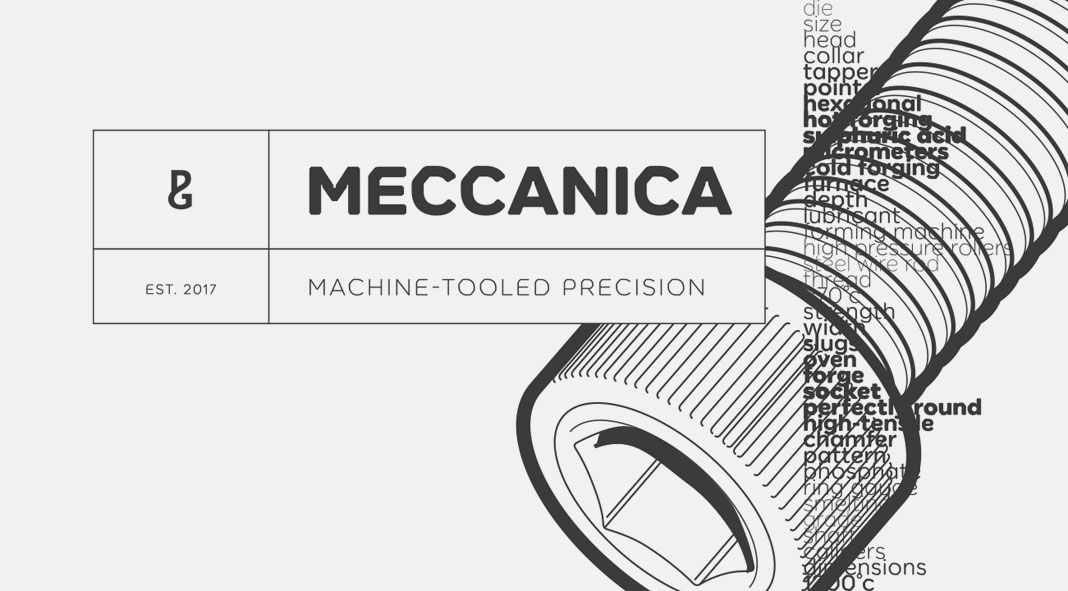
Meccanica, an engineering and mechanics inspired display font family by Paulo Goode.
Designed and published by Paulo Goode, Meccanica is a geometric sans serif font family with a unique appearance. Inspired by mechanics and engineering, the typeface is characterized by a combination of angular bowls and shoulders along with soft, chamfered edges. Its unique characteristic is also defined by angled/hexagonal terminals and semi-hexagonal ink traps. Please read more below or click on the following link to purchase the typeface.
Designed by Paulo Goode for the use as display font, Meccanica is definitely a sans serif typeface like no other. The full family consists of 18 styles comprising 9 weights including Roman and Oblique letters. The unique look will give your typographic work a more distinctive voice. Meccanica works best in headlines, logotypes, modern branding proposals, and short text sections. The complete family is currently available as introductory offer on Fontspring. For additional information, please follow the link below.